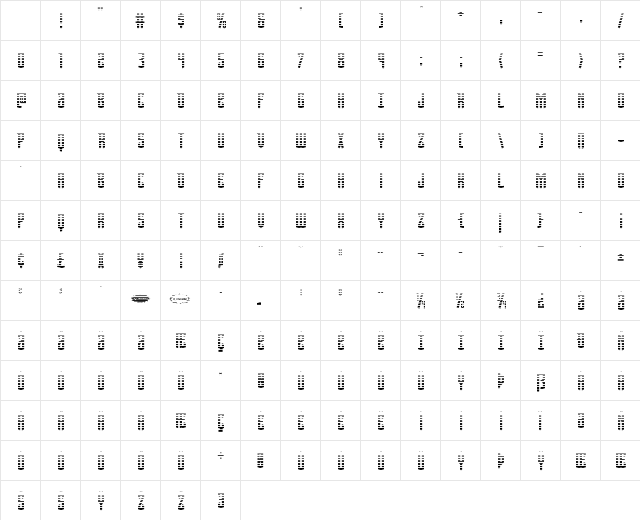
Viceroy of Deacons Gradient Regular Free Font
Viceroy of Deacons Gradient Regular
Complete Viceroy of Deacons Gradient Regular glyph index. Displaying only characters natively supported by Viceroy of Deacons Gradient Regular font.
Design Context for Viceroy of Deacons Gradient
Viceroy of Deacons Gradient is a composed and adaptable typeface that performs quietly and consistently across a wide range of design contexts.